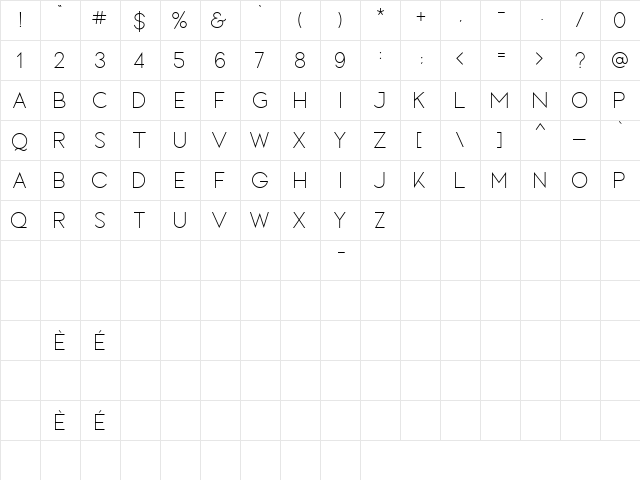
LOVES REG
| Designer | Malik Wisnu |
Design Context for LOVES Typeface
LOVES is a composed and adaptable typeface that performs quietly and consistently across a wide range of design contexts.